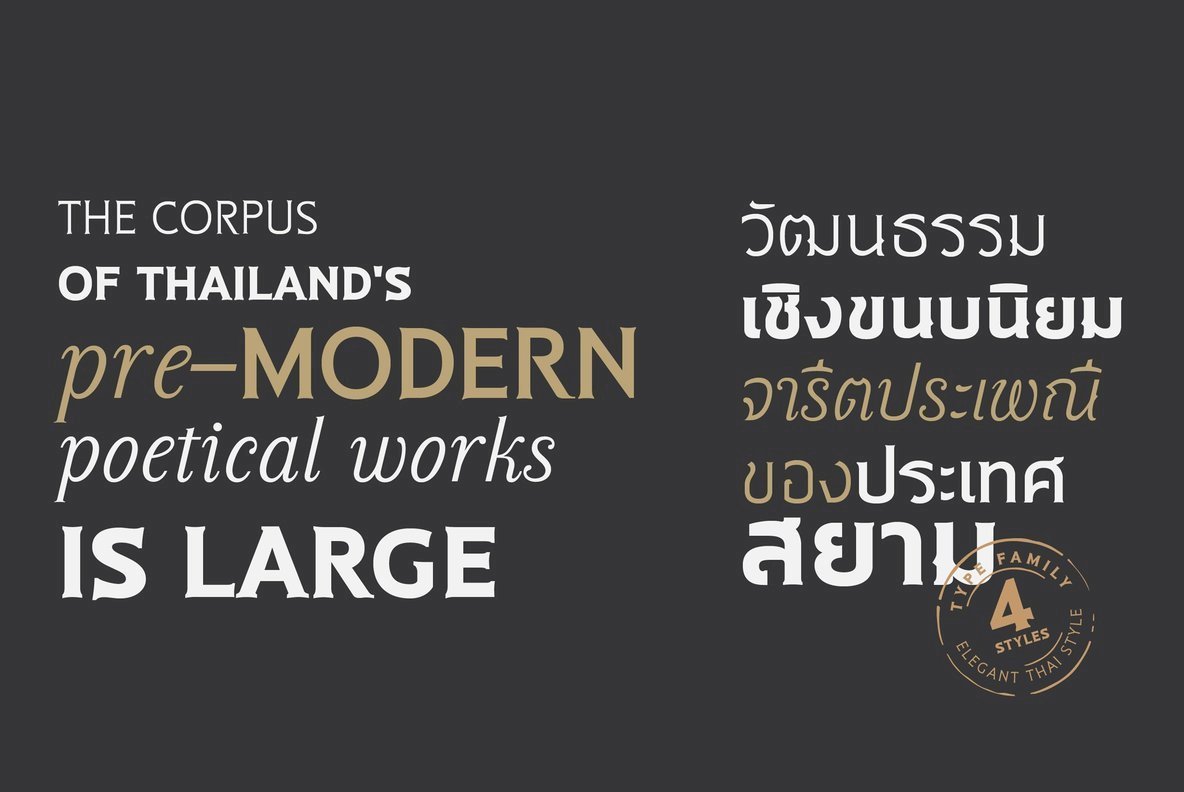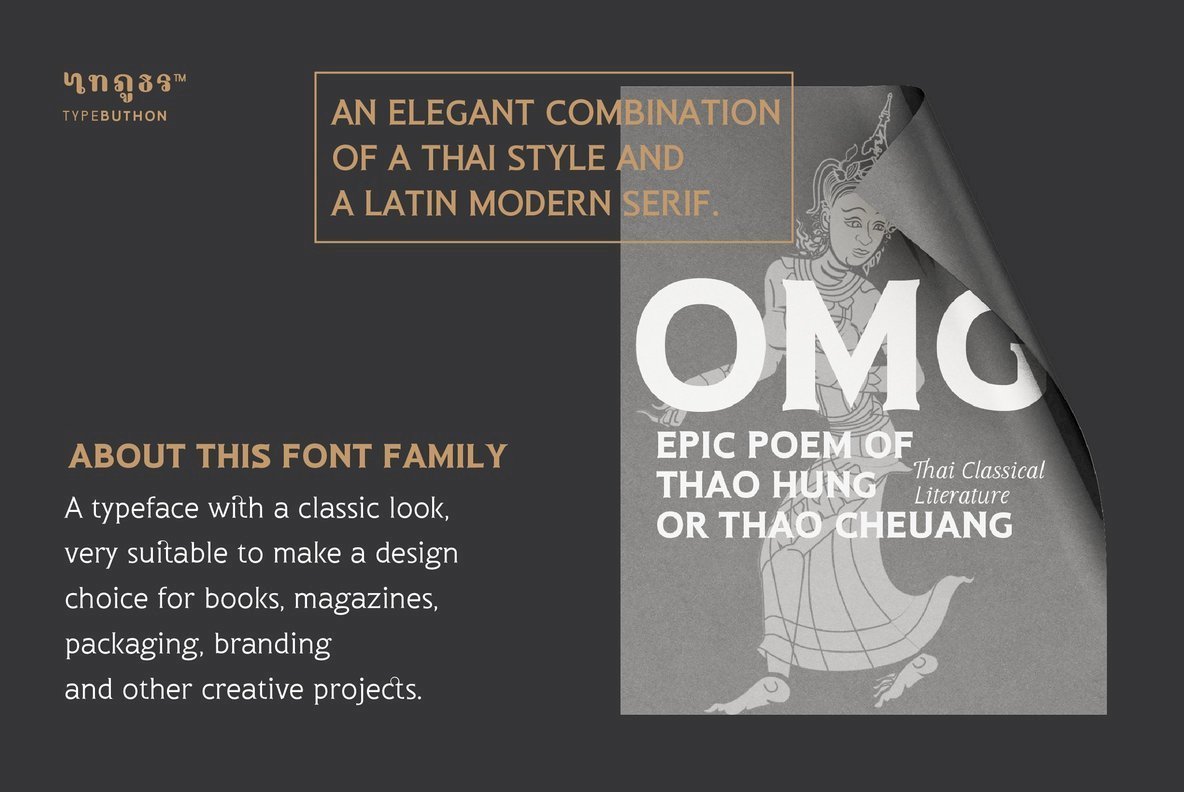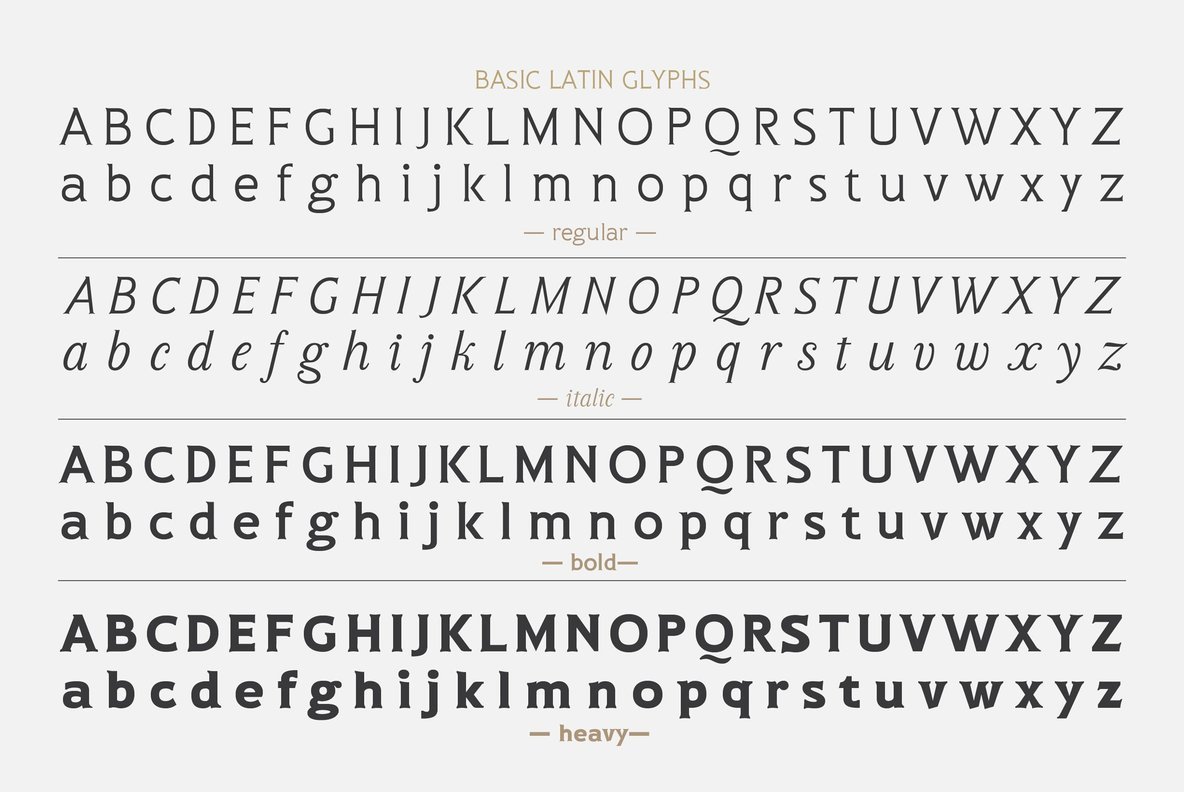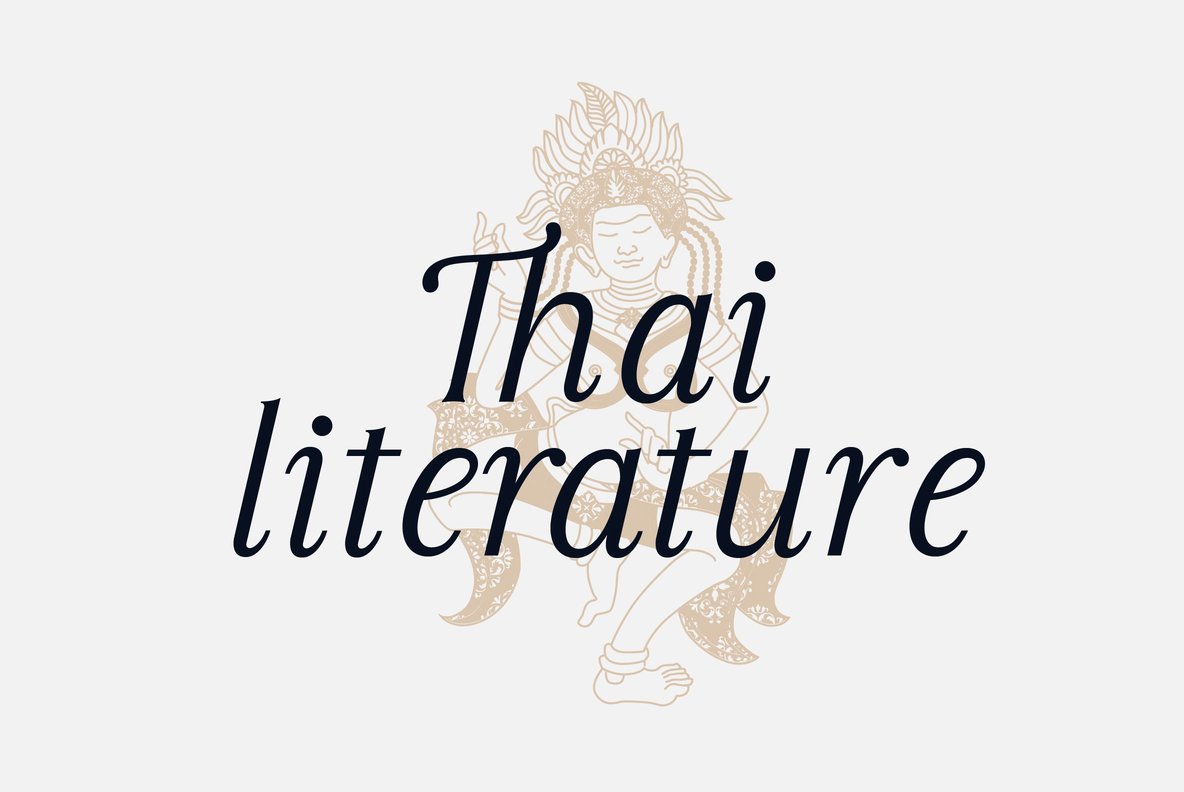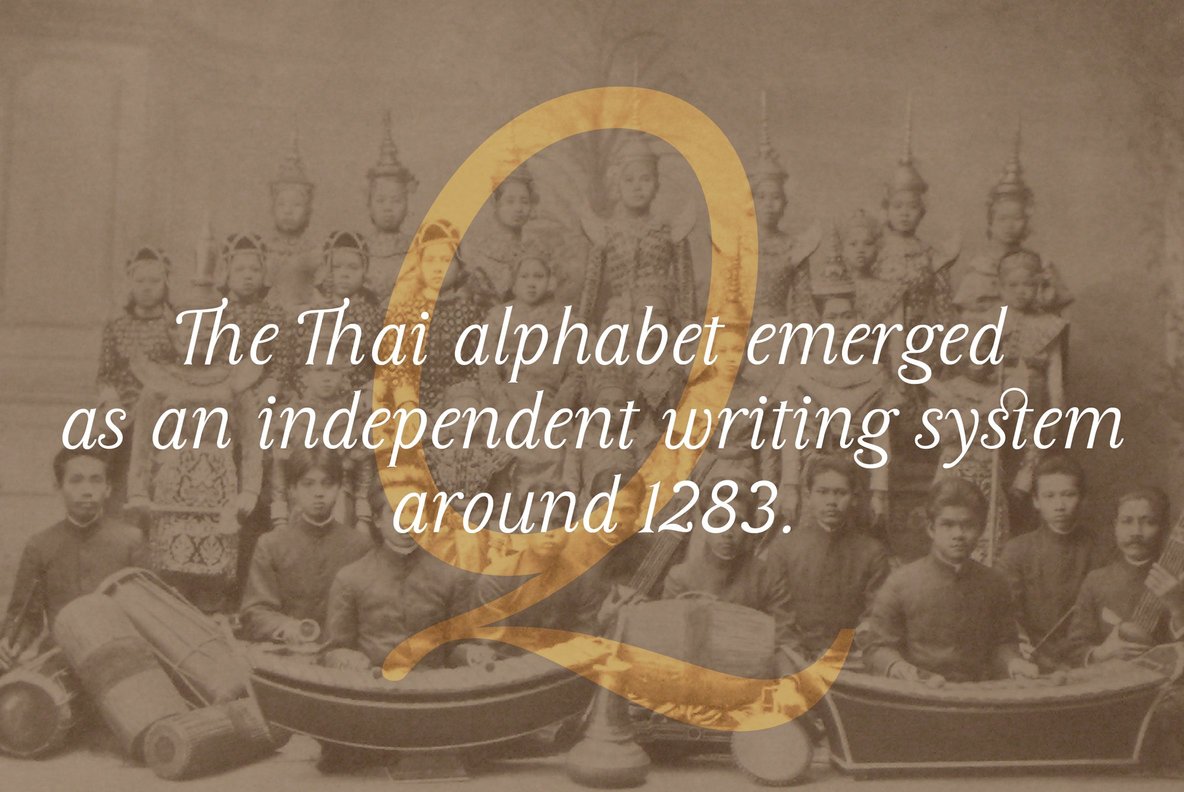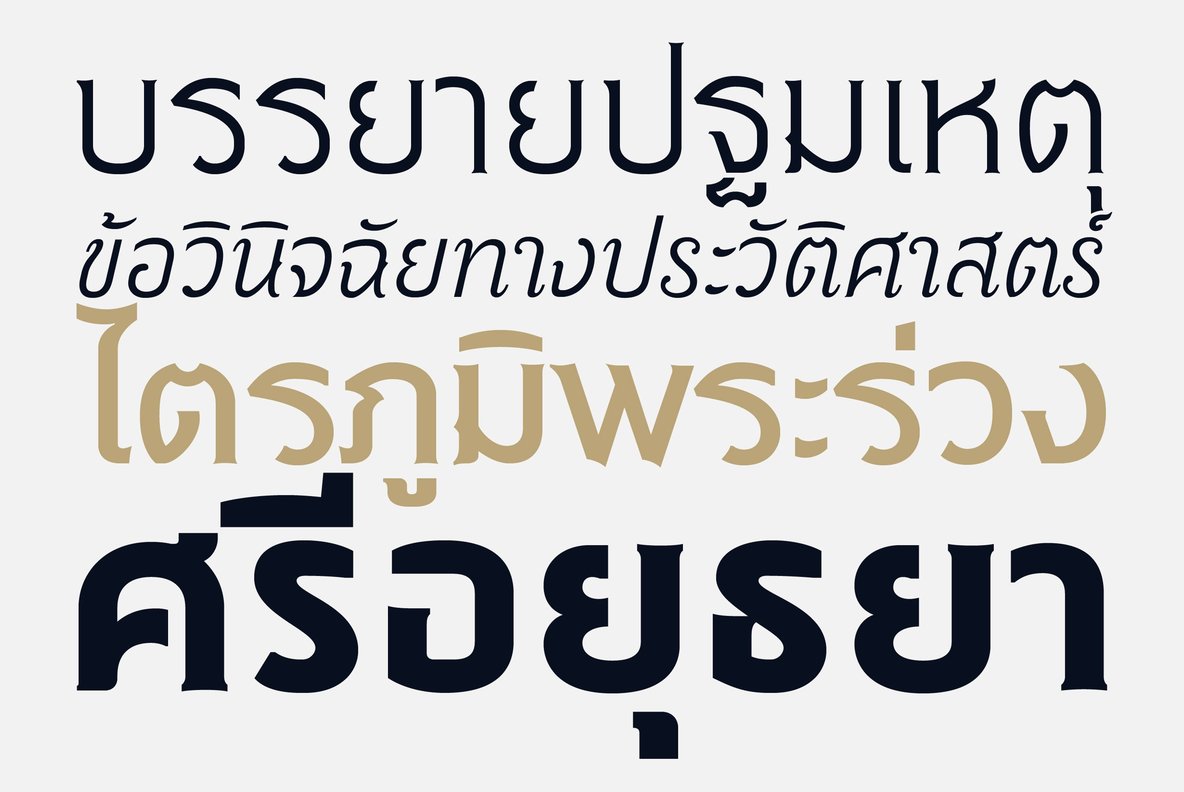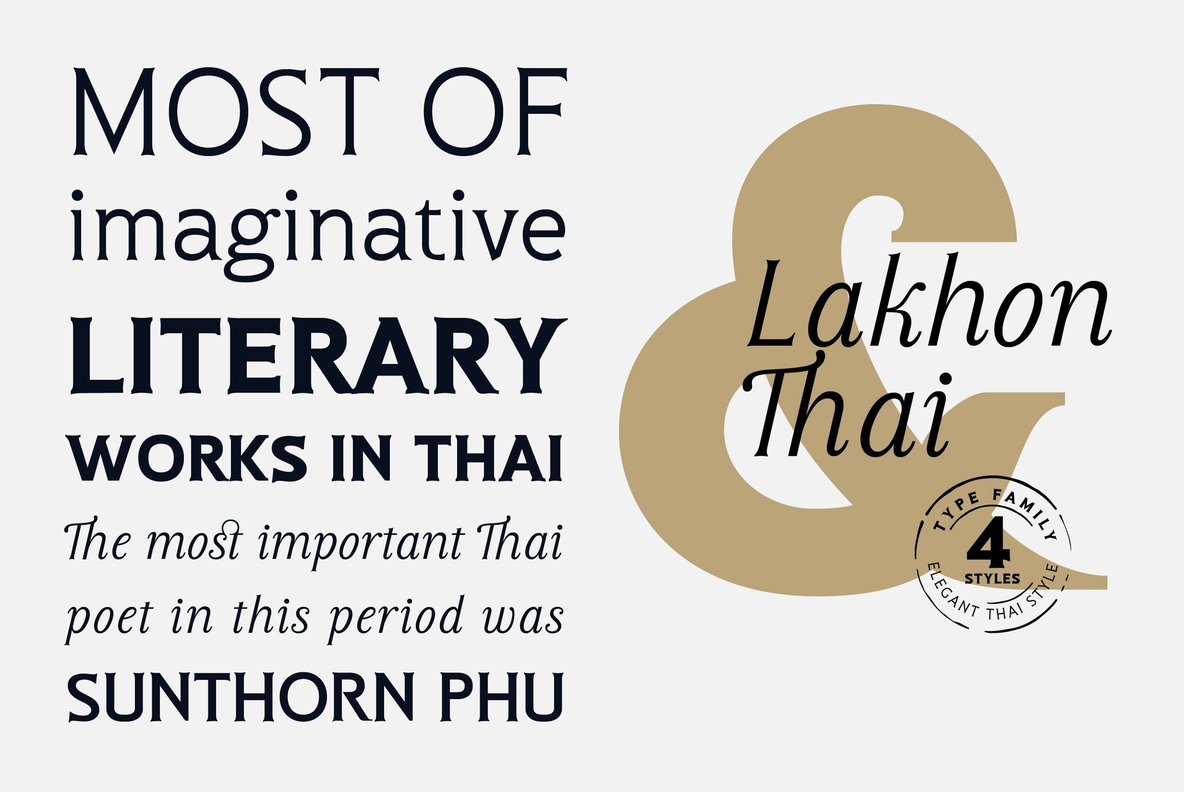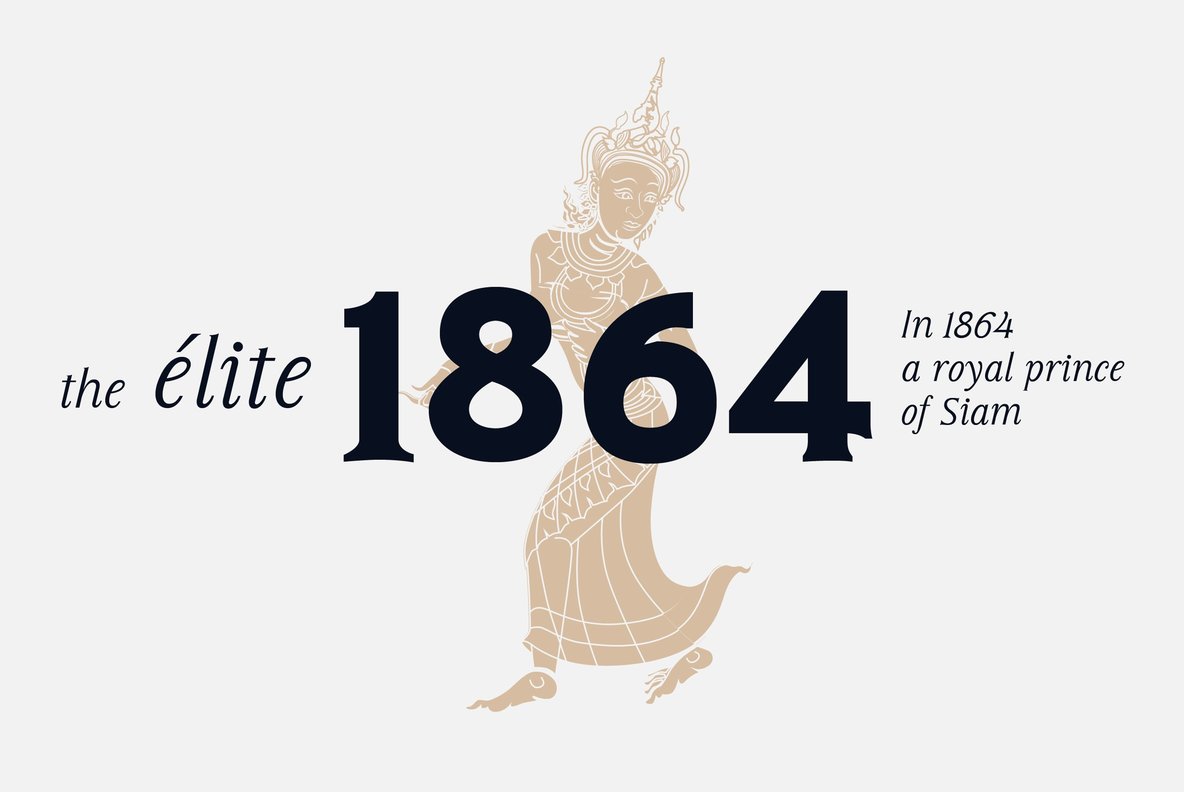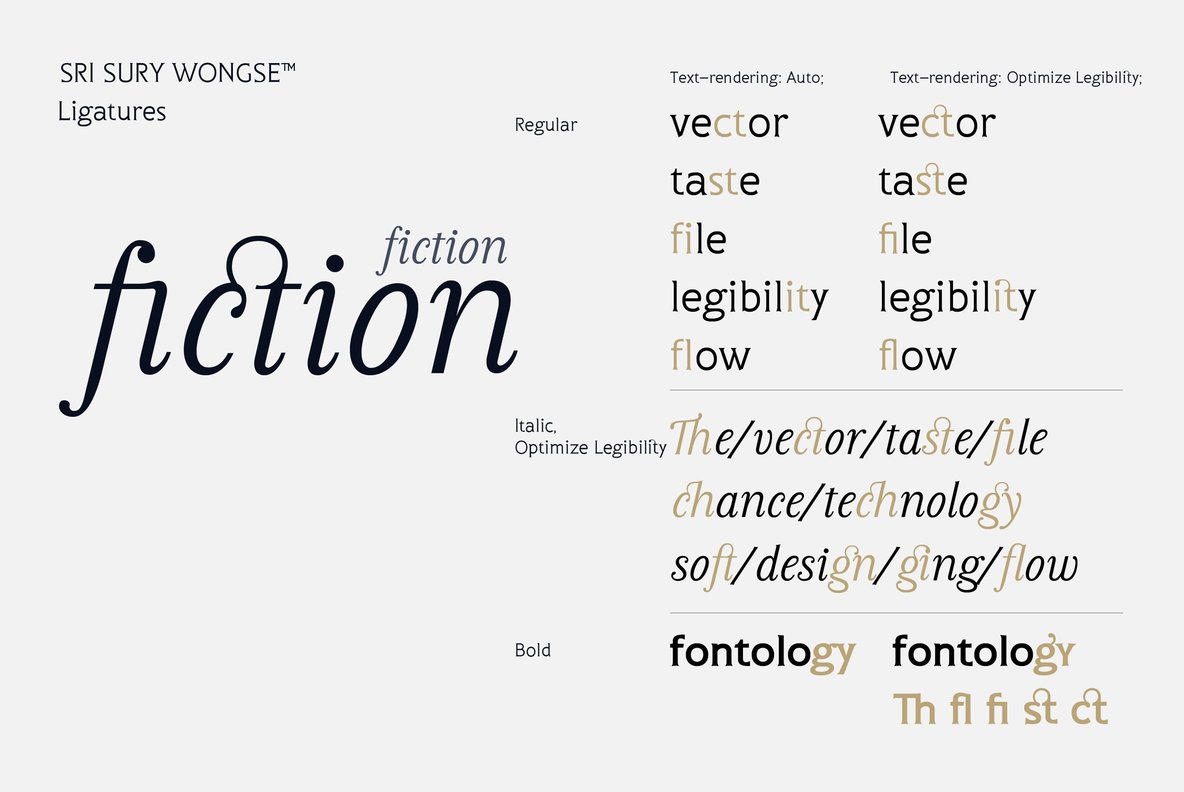
Sri Sury Wongse Font
Srisurywongse is a serif typeface inspired by a mix between both latin serif style & the Thai modern style. The main goal was to bring a bit of modernism to serif fonts by working on the curves of classical serif fonts .
A typeface with a classic look, very suitable to make a design. Great for posters, very big titles, for books, magazines, packaging, branding and other creative projects. the highly ontrasted butler typeface is pleased to be at your service.
The whole srisurywongse family contains a total of 4 regular weights, text figures, ligatures, It also suits many different languages.